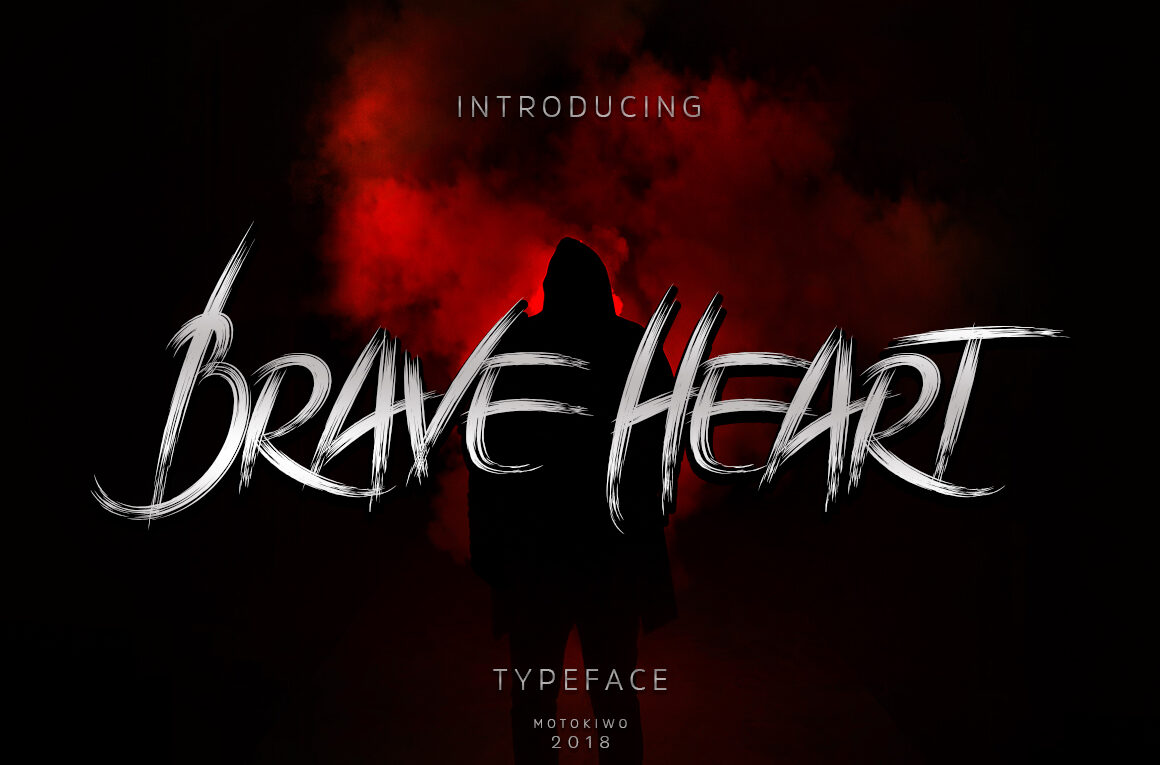
Brave Heart Font: Unleash Your Creativity with this Urban and Edgy Typeface
In the world of typography, fonts play a crucial role in conveying the tone and personality of a design. For designers and crafters looking to add a touch of urban grit and edginess to their projects, the Brave Heart font is an excellent choice. Inspired by street style, this uppercase paintbrush font is textured, vibrant, and perfect for a wide range of applications.
What is Brave Heart Font?
Brave Heart is a unique and eye-catching font that is sure to make a statement. Its textured and paintbrush-like appearance gives it a distinctive look that is reminiscent of street art and urban culture. The font is an uppercase typeface, which makes it perfect for headlines, titles, and other design elements that require a bold and attention-grabbing style.
Key Features of Brave Heart Font
- Urban and Edgy Design: Brave Heart font is inspired by street style, making it perfect for designs that require an urban and edgy look.
- Textured and Vibrant: The font has a textured and vibrant appearance, which gives it a unique and eye-catching look.
- Uppercase Typeface: Brave Heart is an uppercase font, making it perfect for headlines, titles, and other design elements that require a bold style.
- Versatile: The font is suitable for a wide range of projects, including posters, flyers, brochures, and more.
Uses of Brave Heart Font
The Brave Heart font is versatile and can be used for a variety of projects, including:
- Posters and Flyers: The font is perfect for creating bold and eye-catching posters and flyers for events, concerts, and other promotions.
- Branding and Packaging: Brave Heart font can be used for branding and packaging designs that require a bold and urban look.
- Social Media Graphics: The font is suitable for creating social media graphics, such as Facebook and Instagram posts, that require a bold and attention-grabbing style.
- Signage and Displays: Brave Heart font can be used for signage and display designs that require a bold and urban look.
Why Choose Brave Heart Font?
There are several reasons why designers and crafters should choose Brave Heart font for their projects:
- Unique and Eye-Catching: The font has a unique and eye-catching appearance that is sure to make a statement.
- High-Quality Design: Brave Heart font is designed with high-quality and precision, making it perfect for professional designs.
Tips for Using Brave Heart Font
Here are some tips for using Brave Heart font in your designs:
- Use it for Headlines and Titles: The font is perfect for headlines and titles, so use it to grab the attention of your audience.
- Experiment with Colors: Brave Heart font looks great in bold and bright colors, so experiment with different colors to find the one that works best for your design.
- Pair it with Other Fonts: The font can be paired with other fonts to create a unique and interesting look.
- Use it for Urban and Edgy Designs: Brave Heart font is perfect for urban and edgy designs, so use it for projects that require a bold and gritty look.
In conclusion, Brave Heart font is a unique and eye-catching typeface that is perfect for designers and crafters looking to add a touch of urban grit and edginess to their projects. With its textured and vibrant appearance, the font is sure to make a statement and grab the attention of your audience. Whether you’re creating posters, flyers, branding designs, or social media graphics, Brave Heart font is a versatile and affordable option that is sure to deliver.